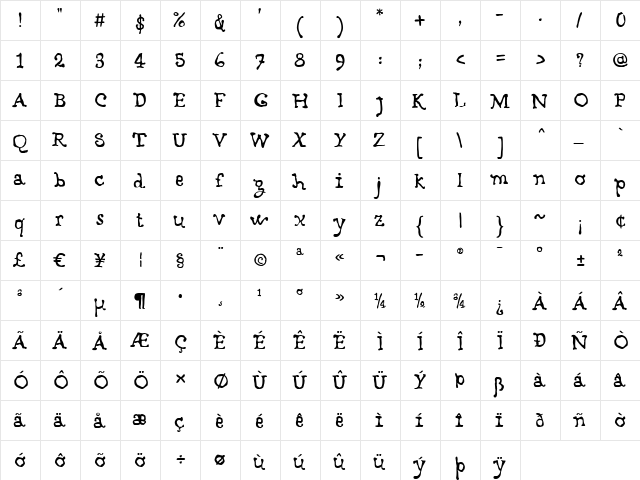
LudwigITC Medium Font Preview
LudwigITC Medium
Design Context for LudwigITC Typeface
LudwigITC is a composed and adaptable typeface that performs quietly and consistently across a wide range of design contexts.